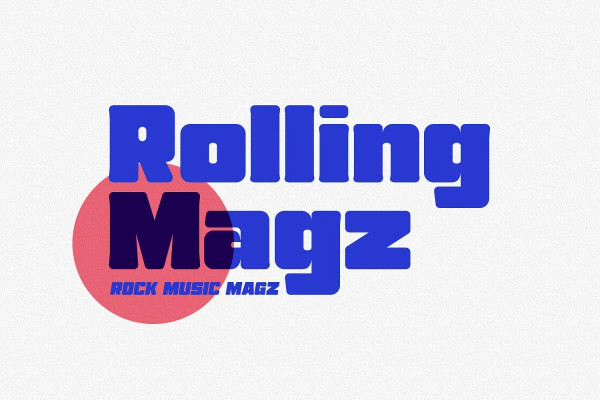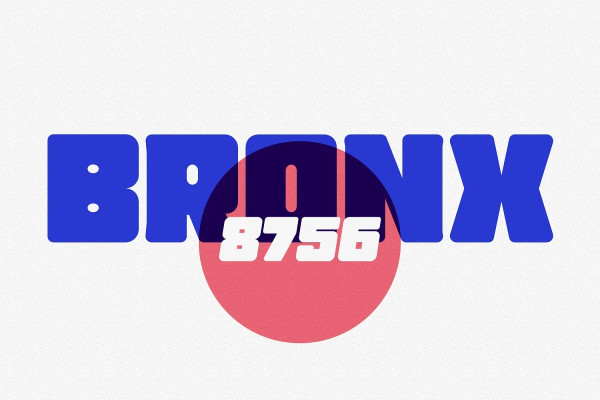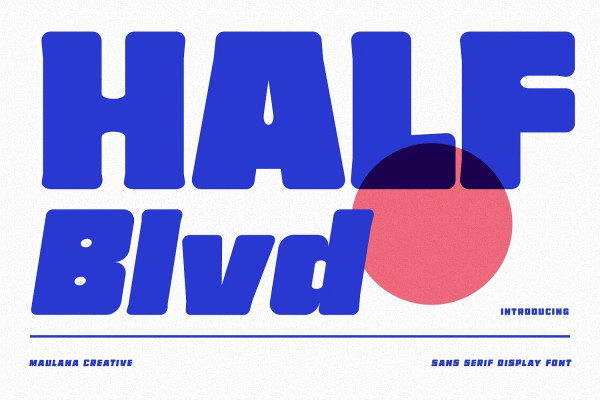
Half Blvd Font
Half Blvd Font is an industrial genre display sans serif font. With bold soft round edge stroke, fun character with a bit of ligatures. To give you an extra creative work. Half Blvd font support multilingual more than 100+ language. This font is good for logo design, Social media, Movie Titles, Books Titles, a short text even a long text letter and good for your secondary text font with sans or serif. Make a stunning work with HalfBlvd font.